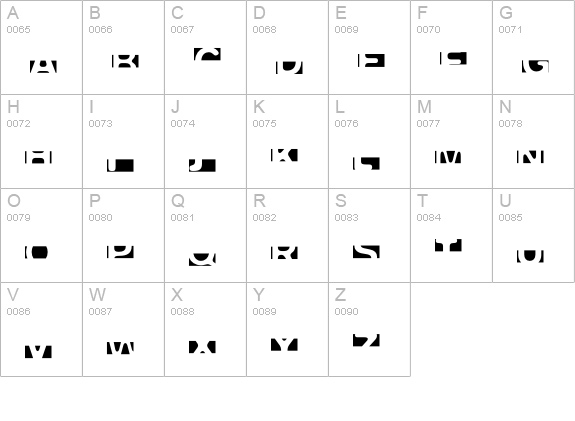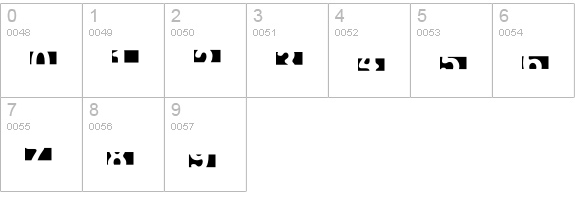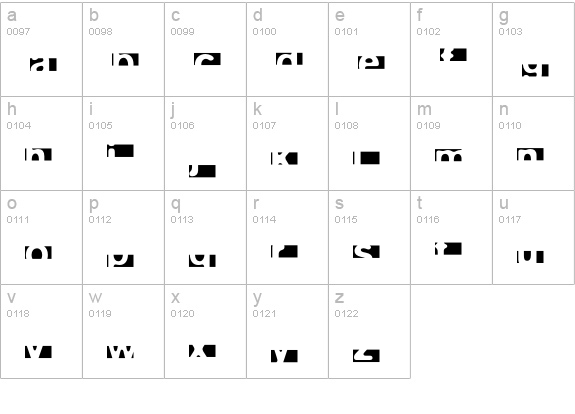
FPeep-Negative Font Details
Introducing FPeep-Negative font, a sleek and modern typeface designed to make a bold statement in your projects. This unique font features sharp lines and a contemporary style that will surely catch the eye of your audience. FPeep-Negative is perfect for branding, headlines, posters, and more, adding a touch of sophistication to any design. What's even better is that FPeep-Negative font is completely free to download at FontsMarket.com! Yes, you read that right - you can elevate your designs with this stunning font without spending a dime. So why wait? Go ahead and grab your free copy of FPeep-Negative font today and take your projects to the next level.